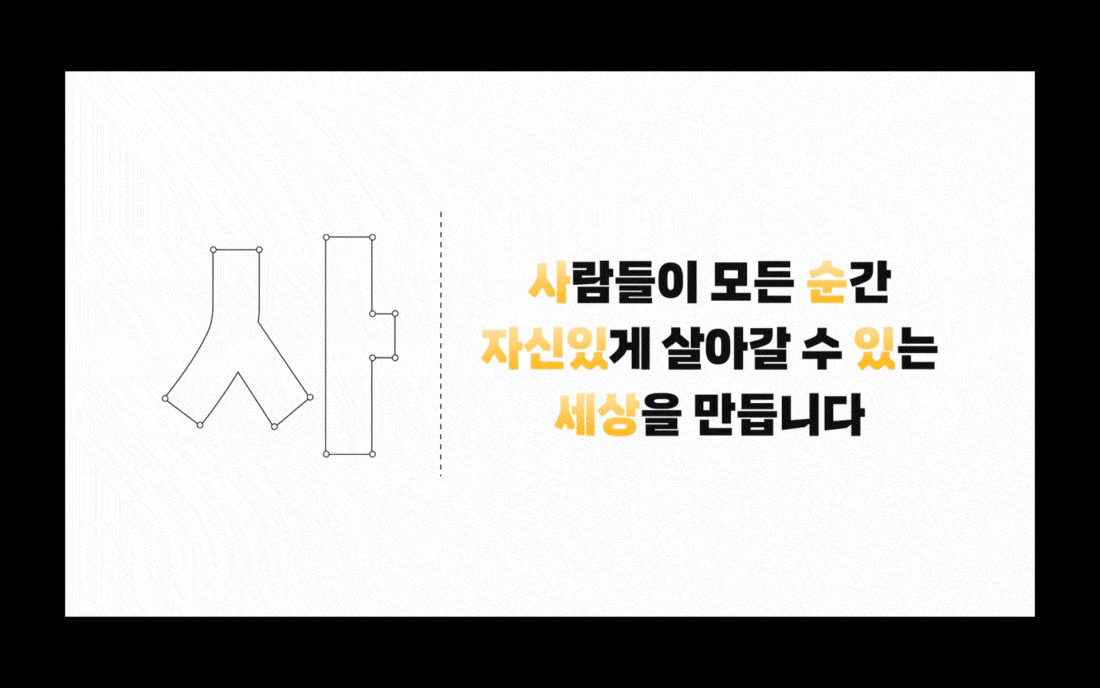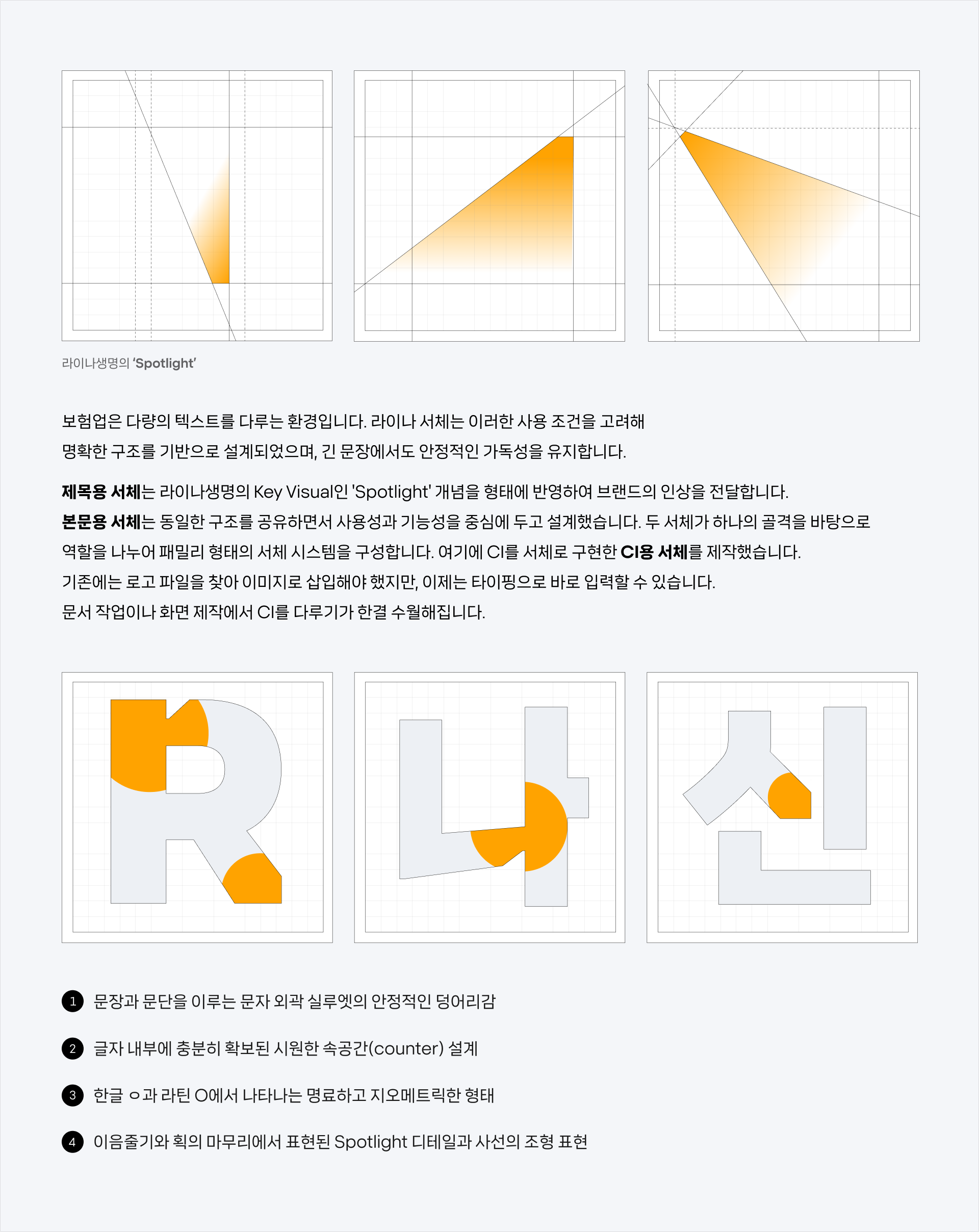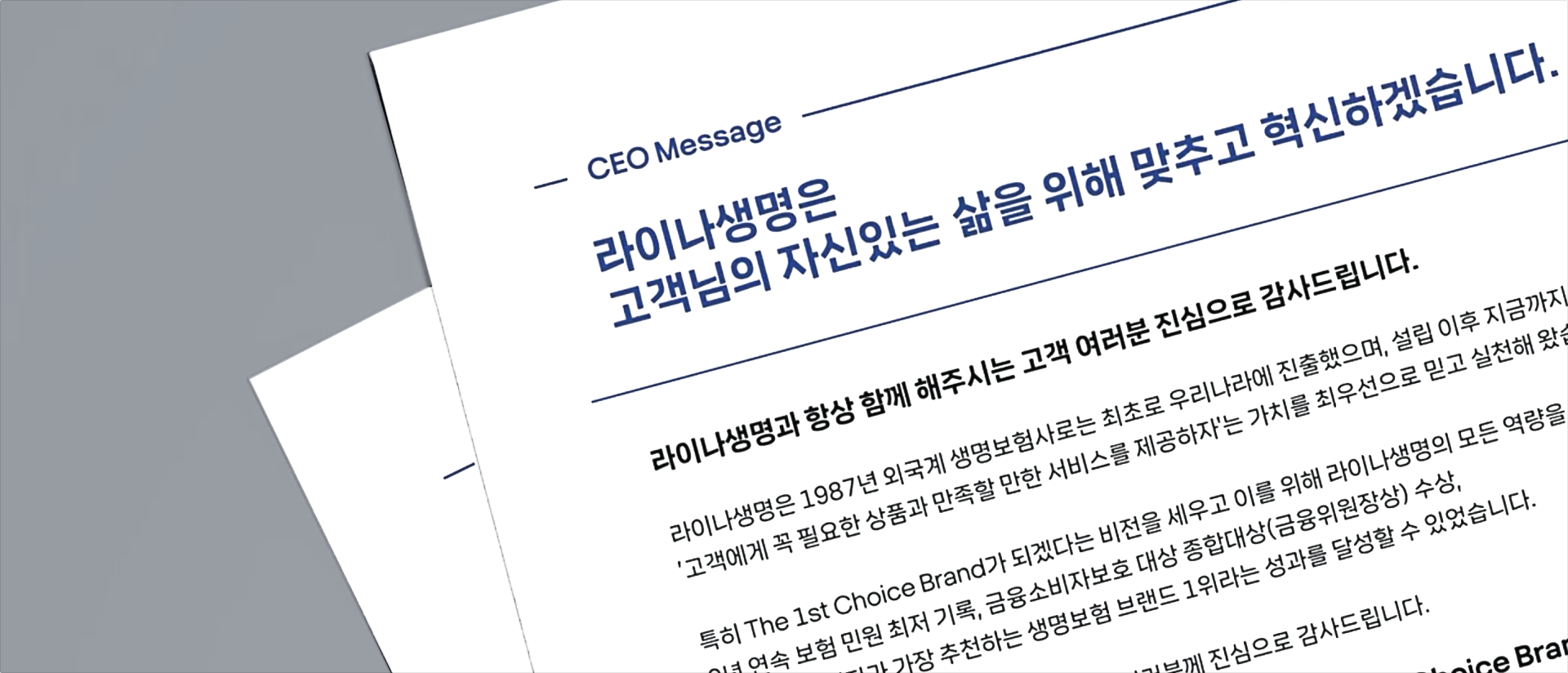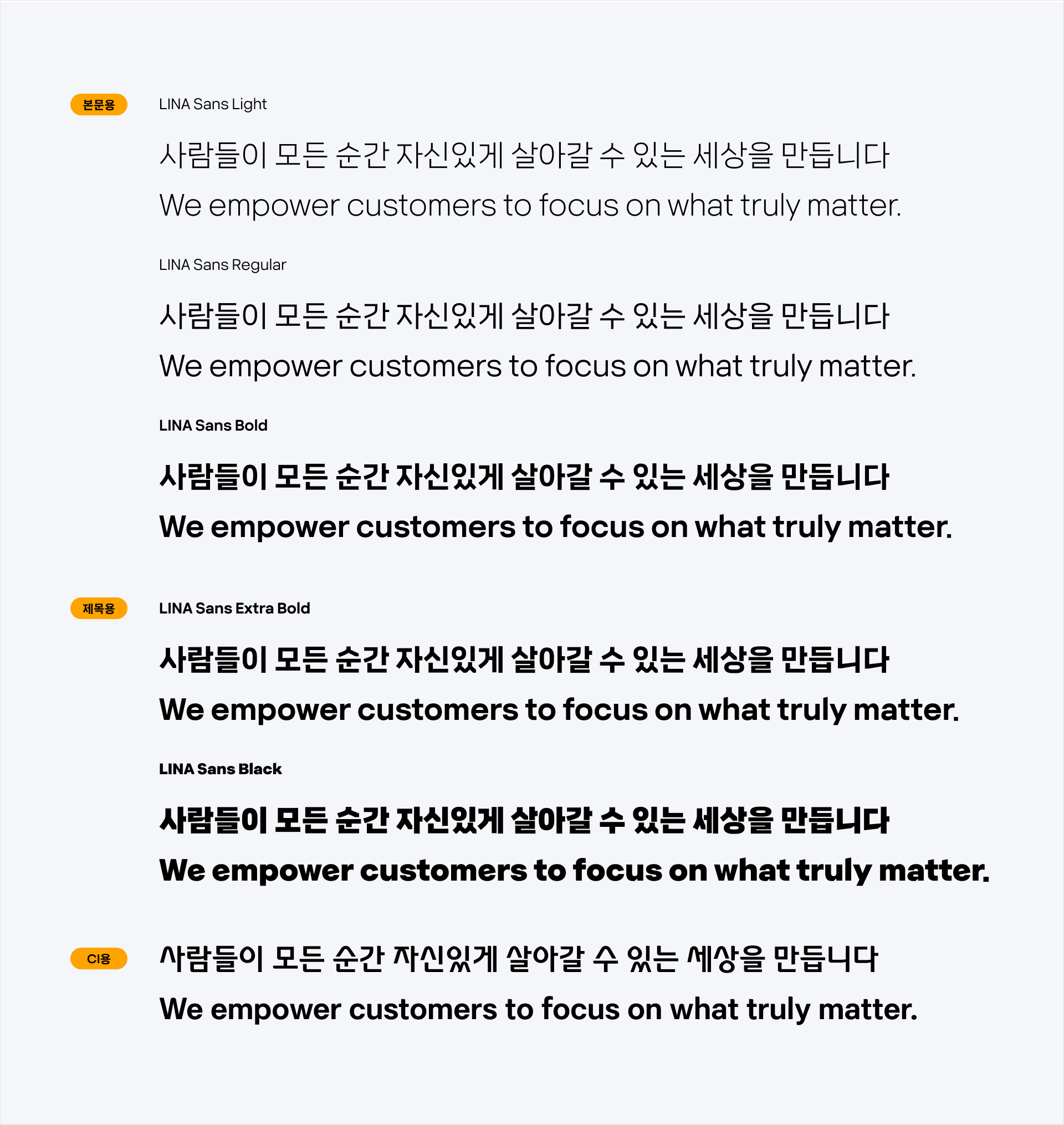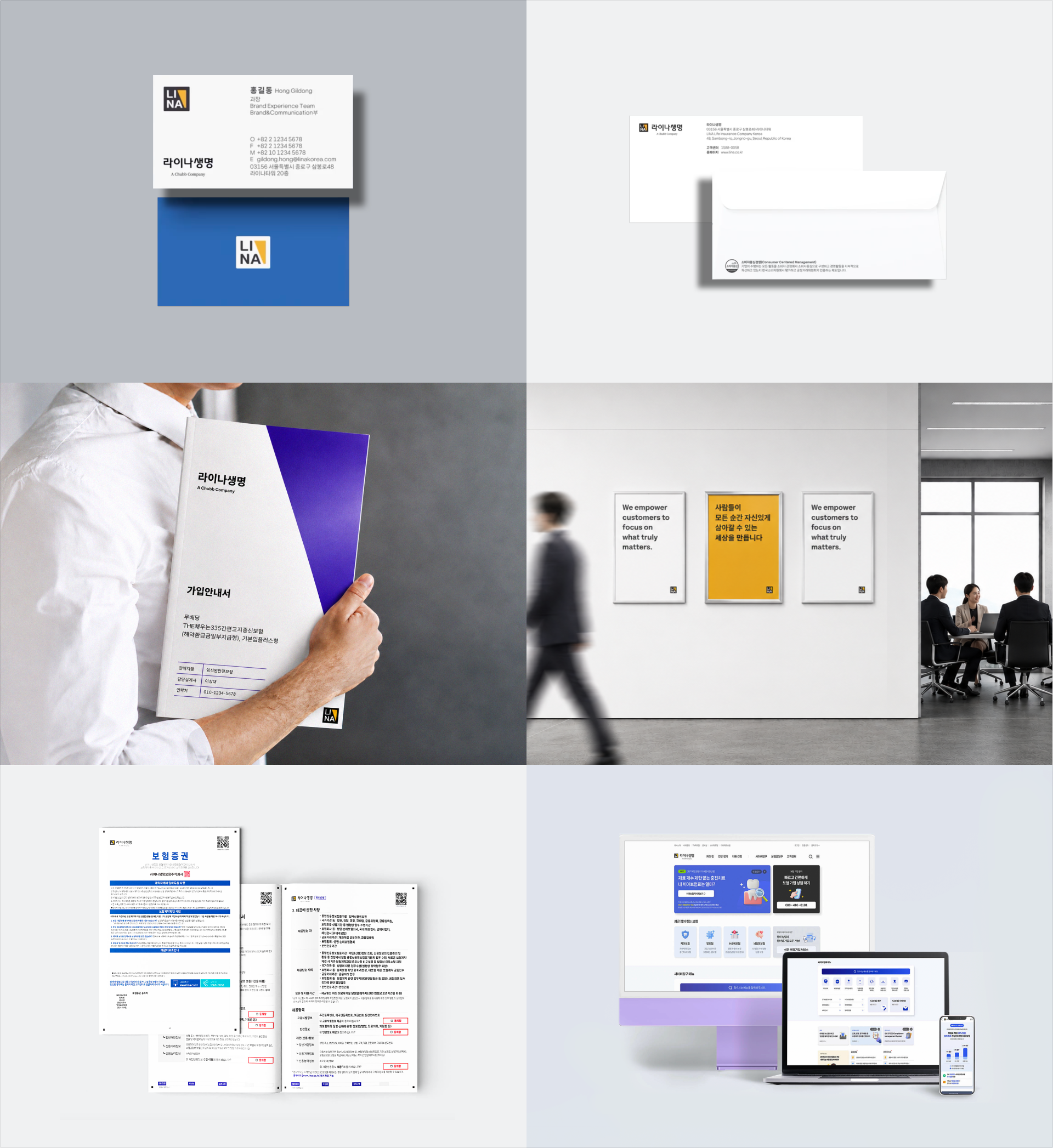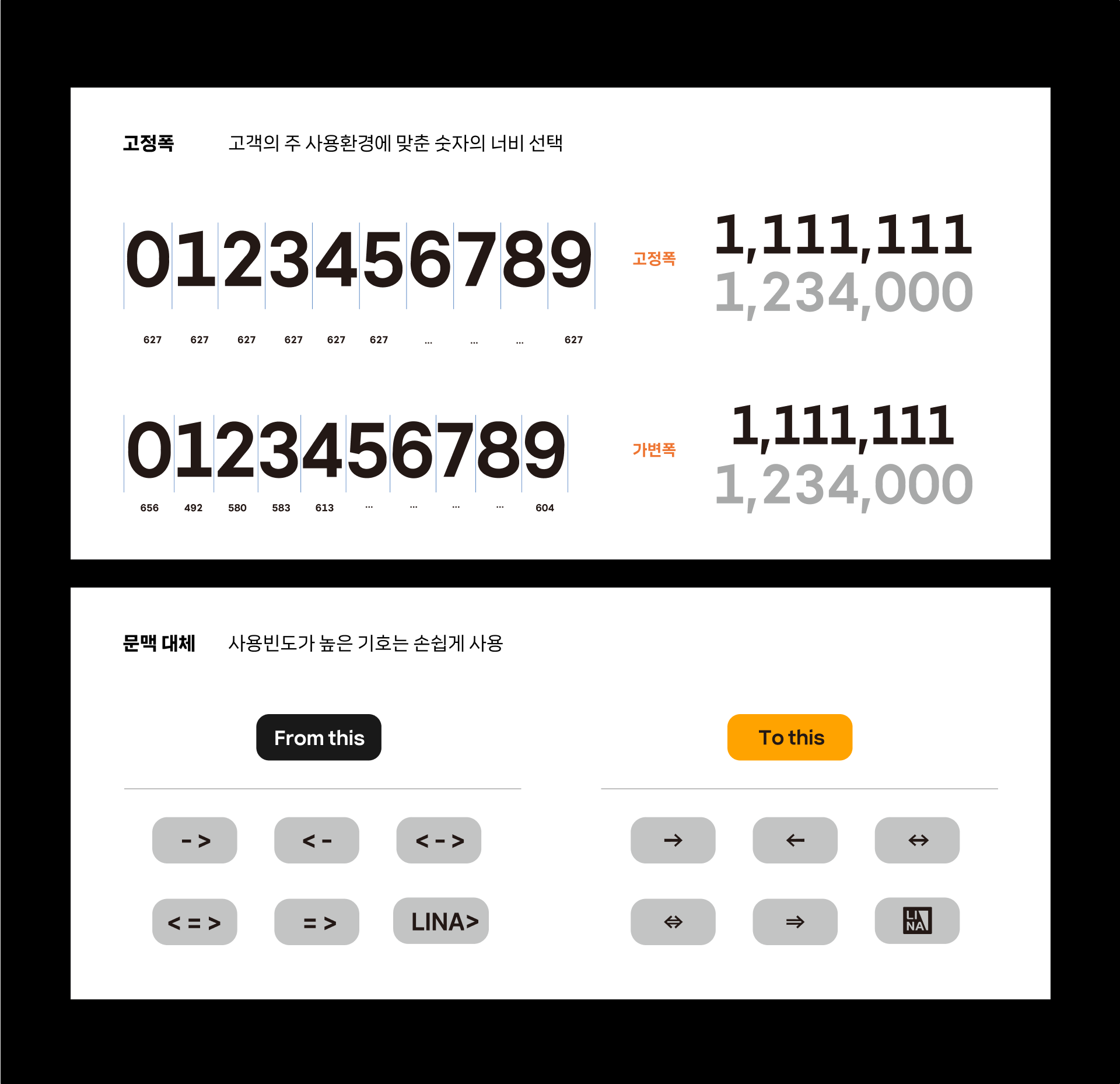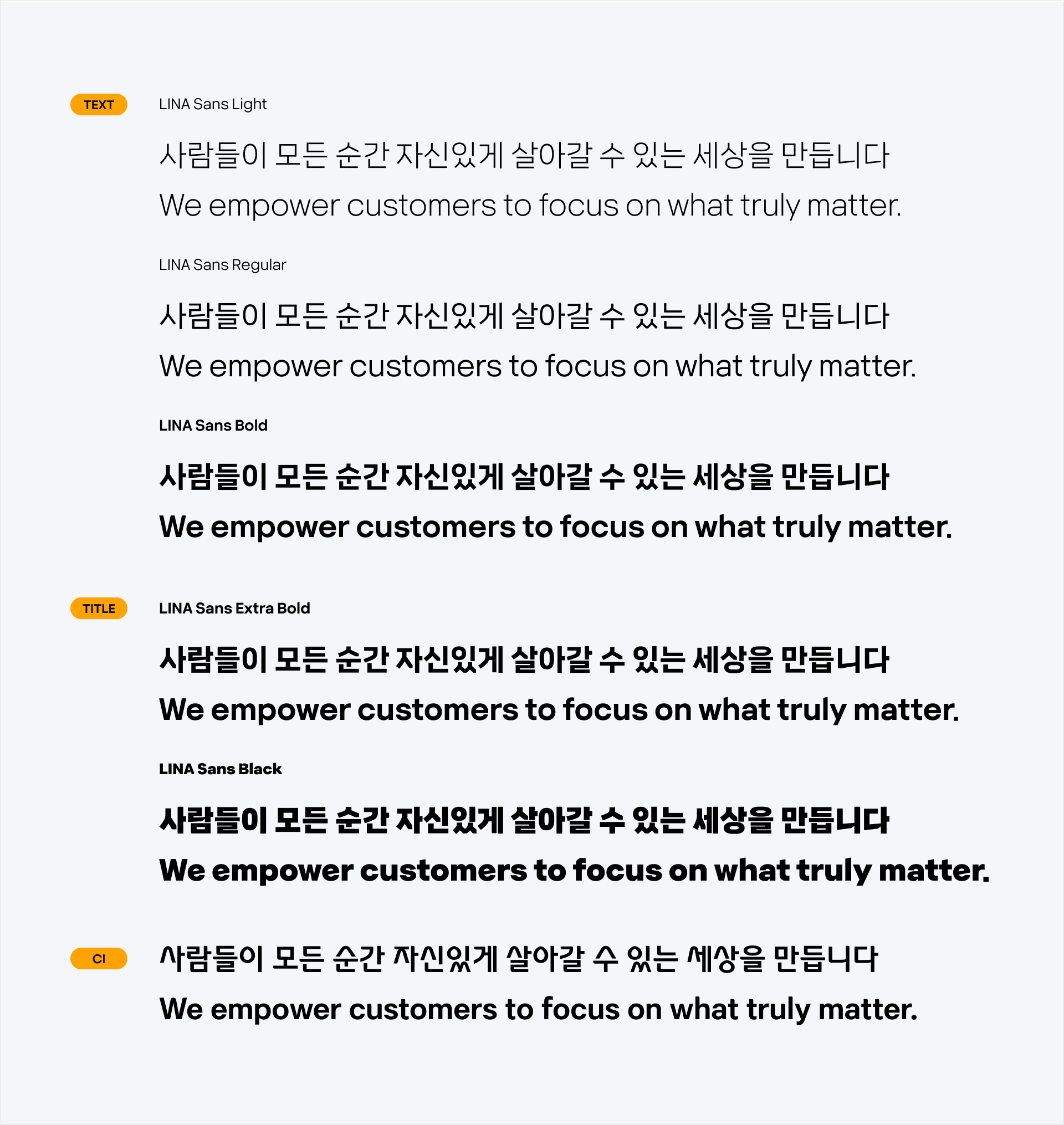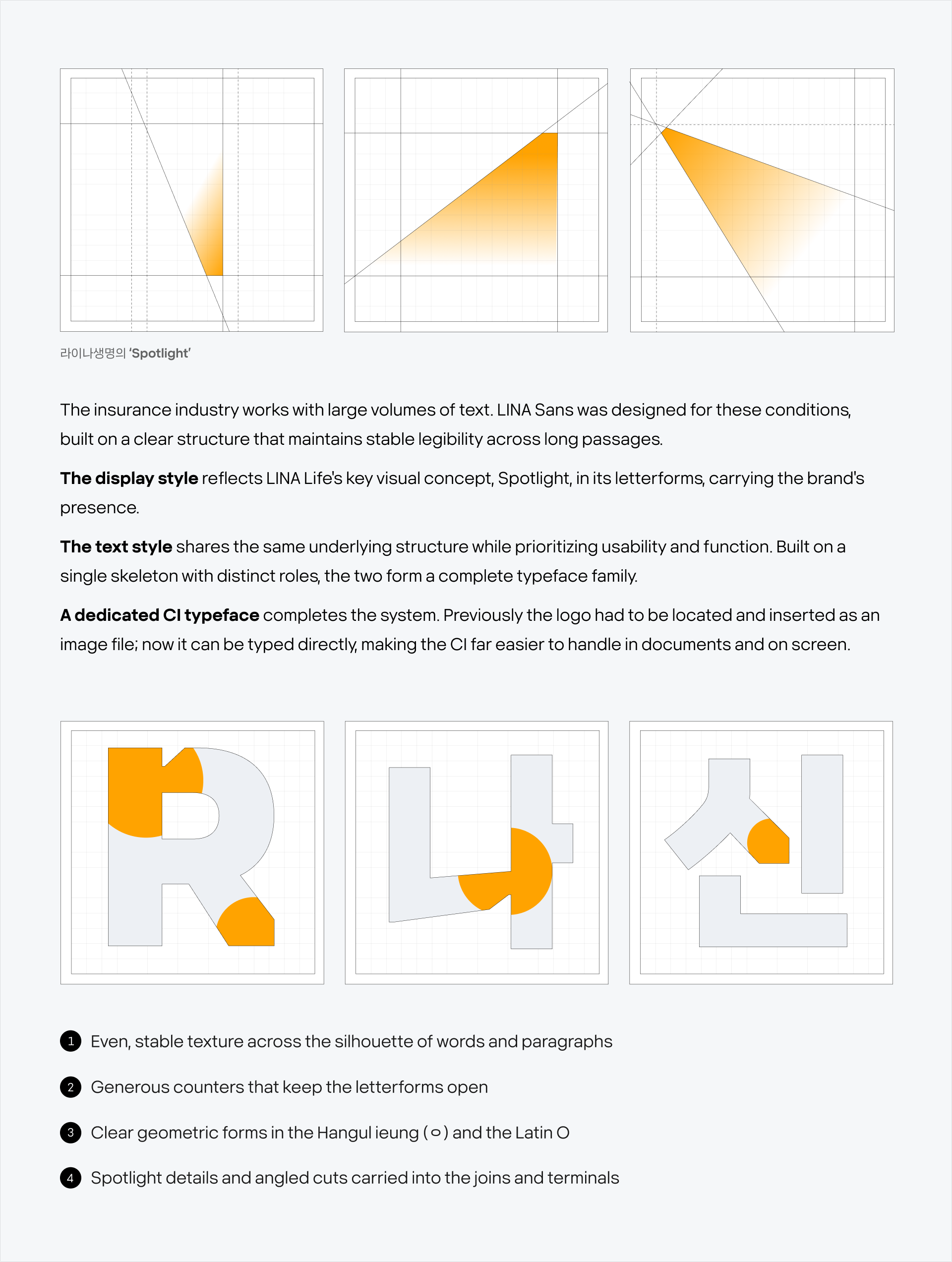
LINA Sans
「LINA Sans」 is a custom typeface developed to establish a new brand image for LINA following the launch of its integrated brand identity in 2024, reflecting the company’s pursuit of innovation and personalization beyond the conventions of the insurance industry. Inspired by LINA’s brand motif, “Spotlight,” distinctive details were incorporated into elements such as connecting strokes and descending dots, creating an innovative yet trustworthy impression that places the individual at the center. The typeface is tailored for display, text, and CI applications, enabling a consistent brand identity across all forms of communication.